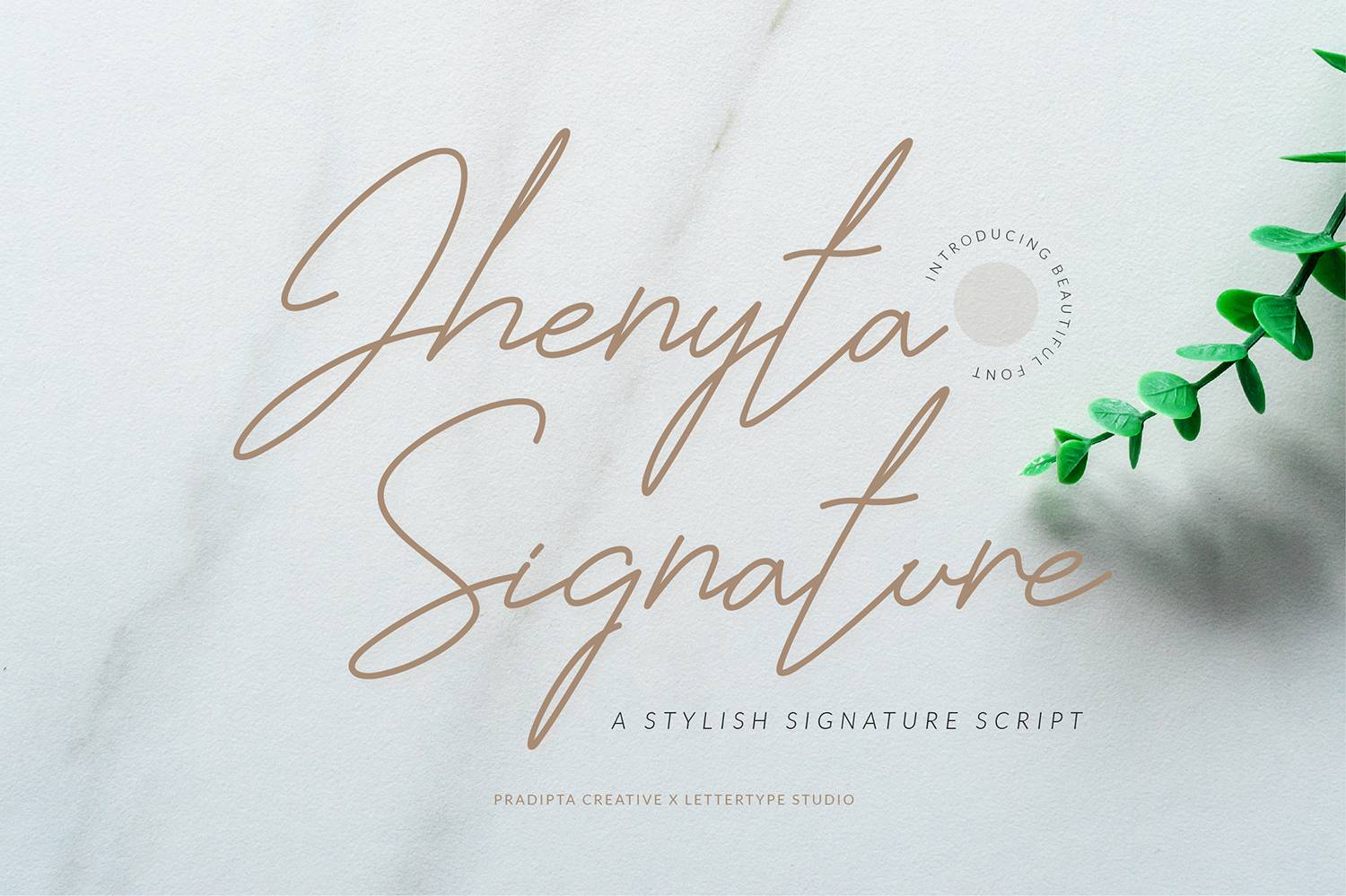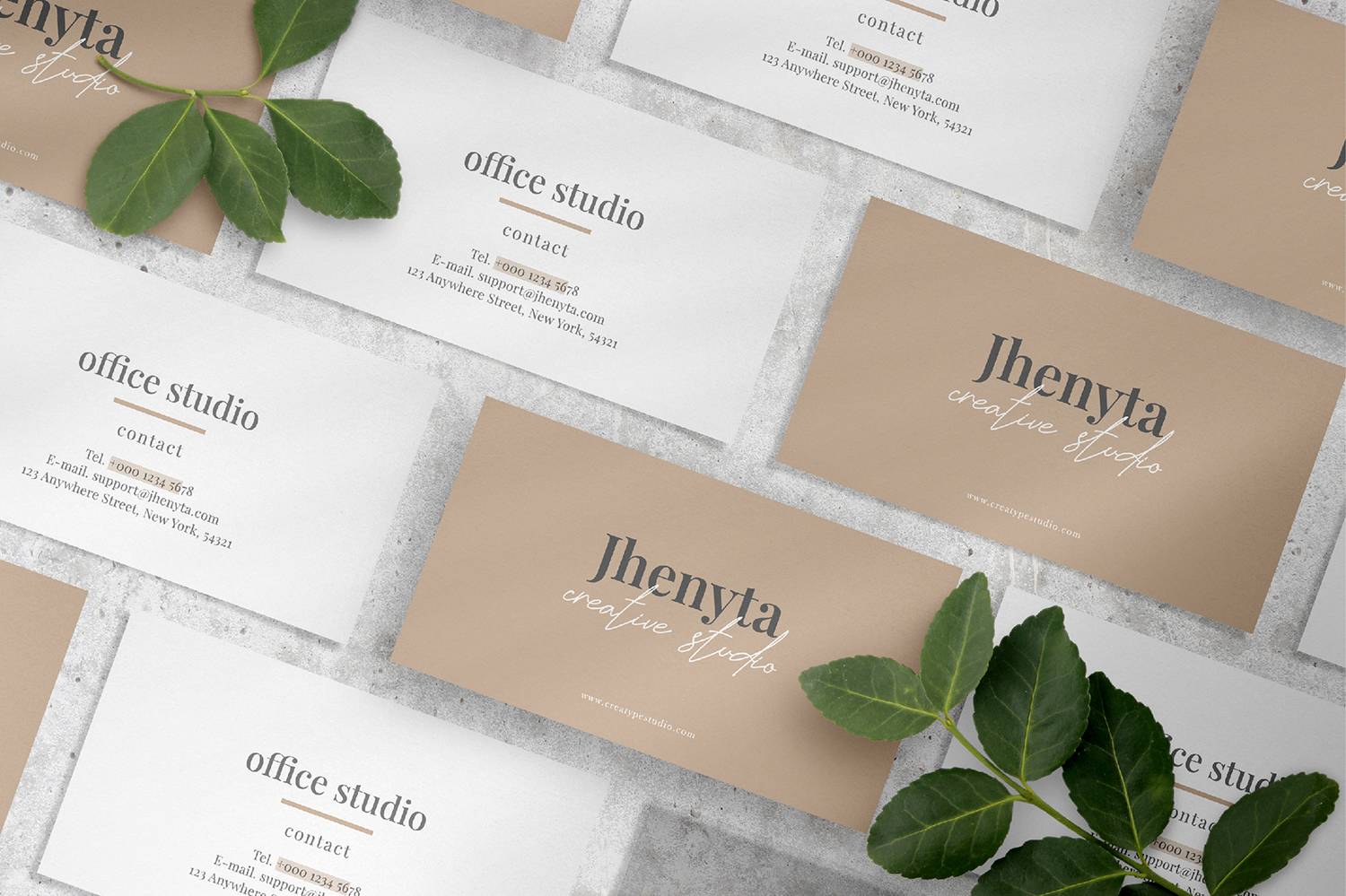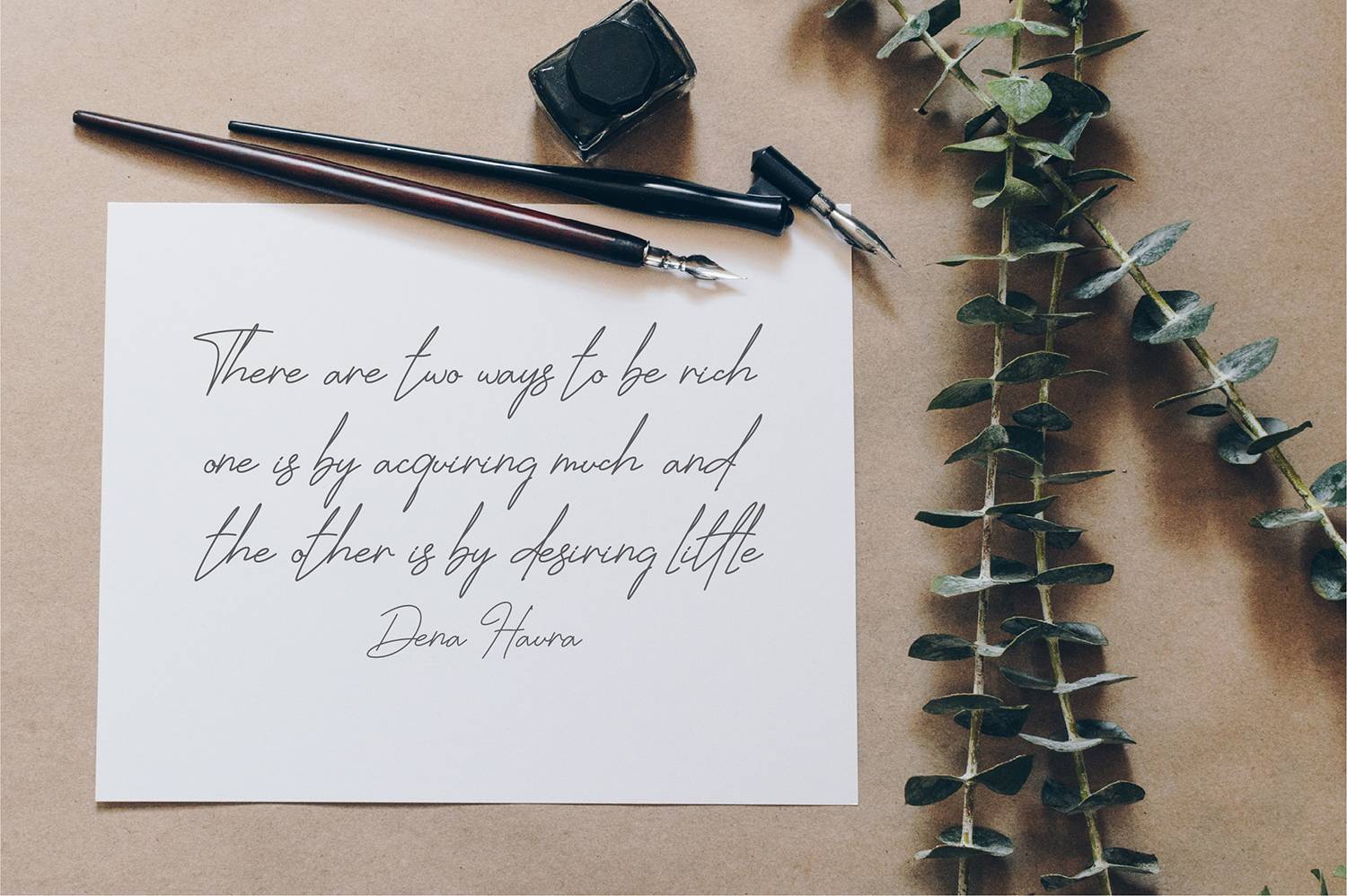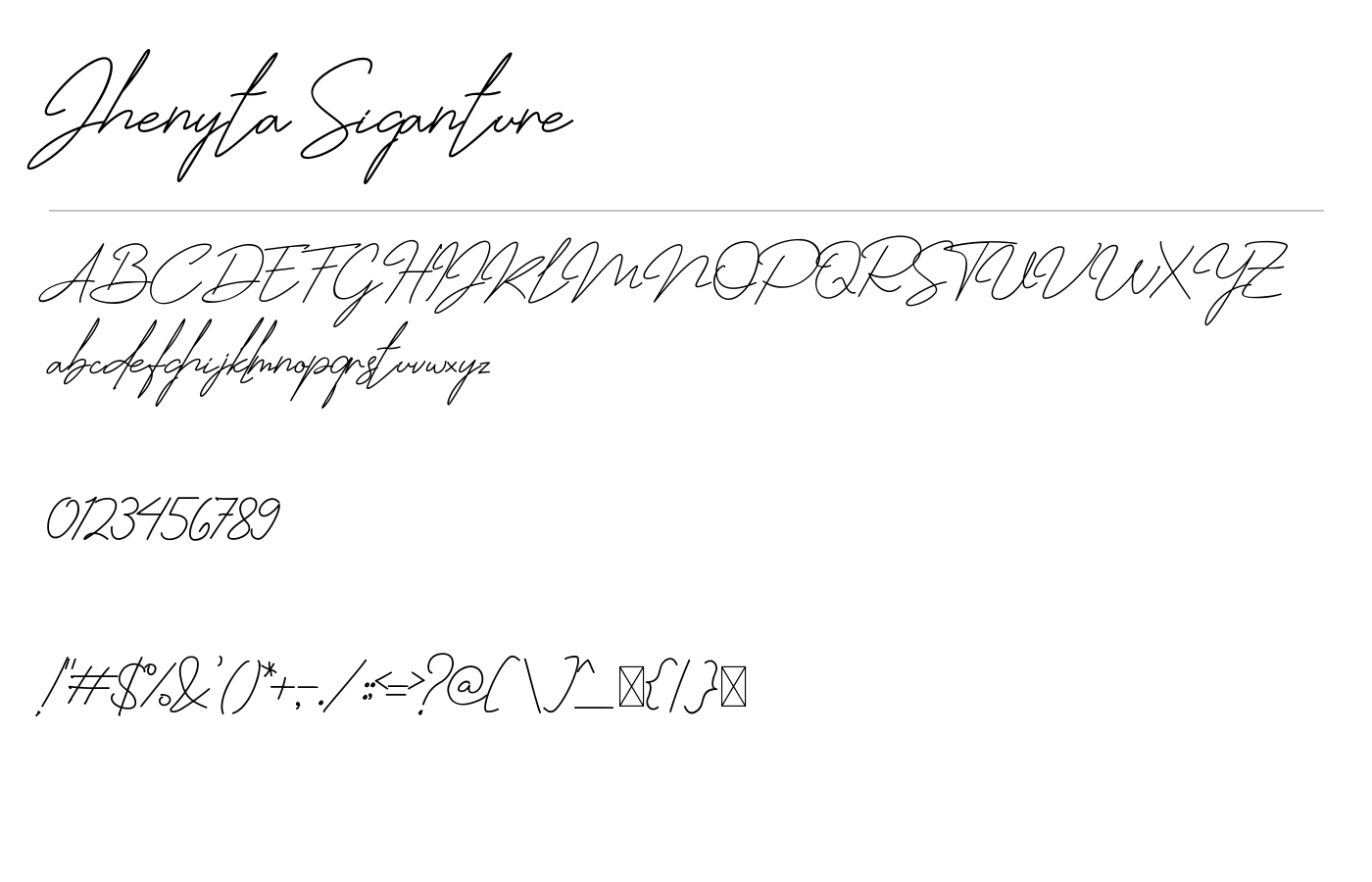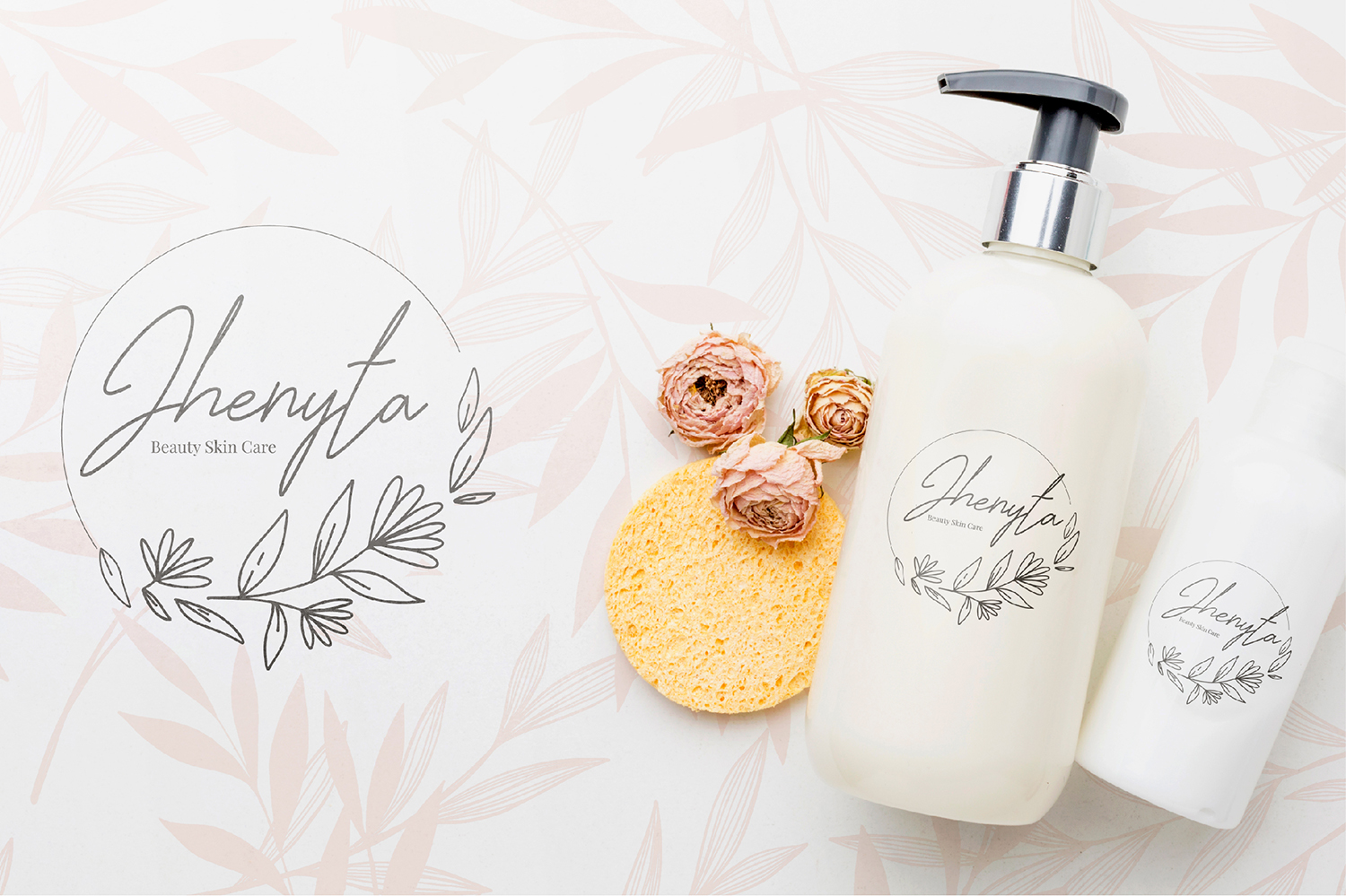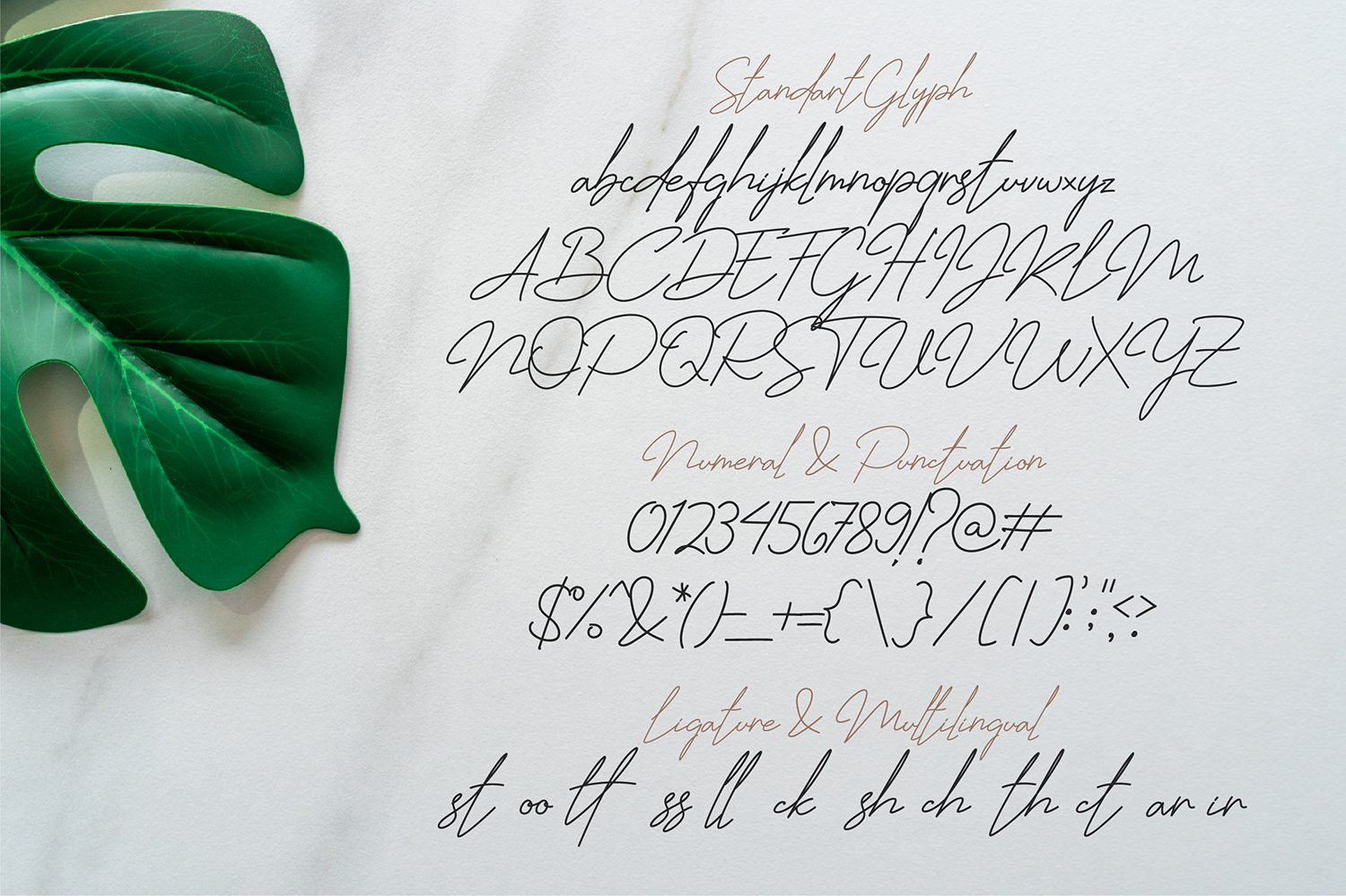
Jhenyta Signature Script is a delicate, elegant handwritten font with a light weight and flowing, cursive strokes that mimic natural handwriting. It features slender, slightly condensed letterforms with a smooth, organic feel, making it perfect for luxurious branding, wedding invitations, and personal signatures. This font adds a sophisticated, intimate touch to designs that seek a refined yet approachable style.
Jhenyta Signature Script
About Jhenyta Signature Script
| Font family | Jhenyta Signature Script |
| Designer | Diki Pradipta Tri Atmojo |